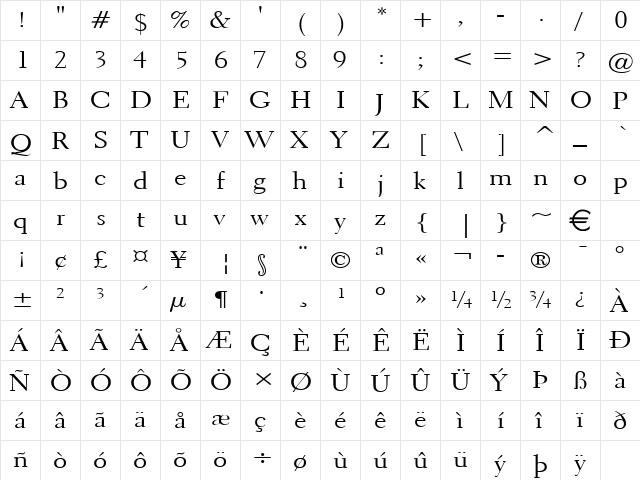
TrannWide Normal
Design Context for TrannWide Typeface
TrannWide takes a measured approach to typography — its balanced proportions and neutral character make it a reliable workhorse for both digital and print work.